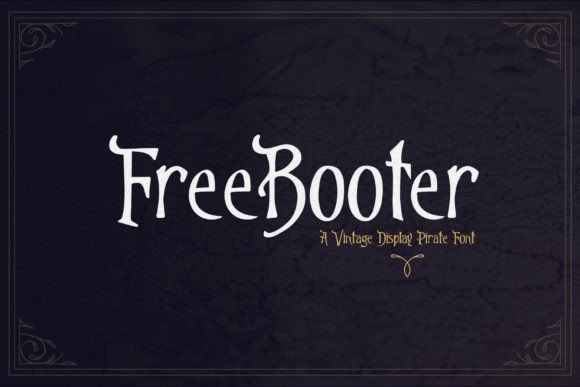
Journey through history with Freebooter, a swashbuckling display font that captures the essence of seafaring adventure. Inspired by the bold lettering found on pirate ships of the 1500s, Freebooter brings a touch of authenticity and intrigue to your designs.
With its charming imperfections, Freebooter adds a unique human touch to your projects. Unleash your creativity and let the spirit of the high seas guide your designs. Whether you're crafting logos, apparel, social media posts, advertisements, editorials, or marketing campaigns, Freebooter will make your words stand out and leave a lasting impression.
Picture yourself as a fearless captain, navigating the vast oceans with Freebooter as your guiding light. Let your designs embark on a voyage of discovery, evoking the thrill of exploration and the allure of hidden treasures. Whether you're a seasoned designer or just starting your creative journey, Freebooter is your compass to a world of limitless possibilities.